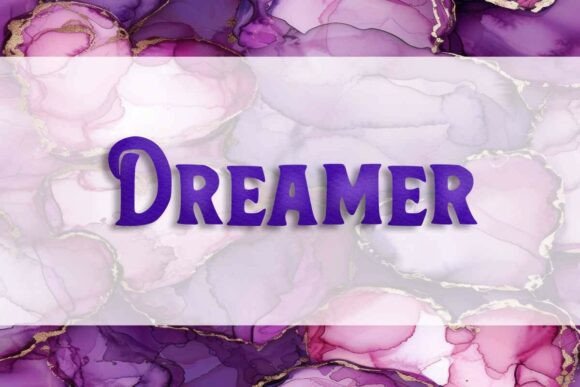
Unlock Endless Design Possibilities with the Dreamer Font
In the realm of typography, few fonts manage to capture the essence of creativity and versatility as effectively as the Dreamer font. This enchanting typeface is designed to bring an artistic flair to a wide array of projects, making it an indispensable tool for designers, crafters, and artists alike. Whether you’re looking to enliven your t-shirt designs, add a distinctive touch to your branding efforts, or infuse your magazine layouts with an unexpected twist, the Dreamer font is up to the task.
The Artistic Versatility of Dreamer Font
The Dreamer font stands out for its unique ability to adapt to various design needs. Its artistic and somewhat whimsical nature makes it perfect for projects that require a bit of flair. Here are some ways you can leverage the creative potential of the Dreamer font:
- T-Shirt Designs: Transform plain t-shirts into eye-catching apparel with the Dreamer font. Its stylish and contemporary look ensures that your designs stand out, making it ideal for personal projects or commercial endeavors.
- Branding: Give your brand a distinctive voice with the Dreamer font. Use it in your logos, marketing materials, and website to create a cohesive and memorable brand identity.
- Magazine Layouts: Add an element of surprise to your magazine layouts with the Dreamer font. Its versatility allows it to complement a variety of themes and styles, ensuring your publication captures the attention of readers.
Seamless Translation into SVG Files
For those involved in crafting and DIY projects, the ability to convert the Dreamer font into SVG (Scalable Vector Graphics) files is a significant advantage. SVG files are crucial for cutting machines like Cricut, allowing for precision cuts and enabling the creation of intricate designs. The Dreamer font translates smoothly into SVG files, making it perfect for:
- Greeting Cards: Create standout greeting cards with an enchanting vibe. The Dreamer font adds a personal touch to your cards, making them memorable for any occasion.
- Cricut Projects: Infuse your Cricut projects with a spirit of whimsy by using the Dreamer font. From custom vinyl decals to intricate paper crafts, the Dreamer font elevates your creations to a new level of artistry.
Enhancing Your Visual Projects
Beyond its application in digital and craft projects, the Dreamer font is also an excellent choice for enhancing your posters and social media content. Its striking appearance ensures that your message not only reaches a wider audience but also leaves a lasting impression.
- Posters: Elevate your posters with the Dreamer font, making them more engaging and visually appealing. Whether you’re advertising an event, promoting a product, or spreading awareness about a cause, the Dreamer font helps your poster stand out.
- Social Media: In the crowded world of social media, memorable engagement is key. Use the Dreamer font in your social media graphics to inspire interaction and make your content more shareable.
Step into a World of Endless Design Possibilities
The Dreamer font opens up a world of creative possibilities, allowing designers and creators to push the boundaries of their projects. Its versatility, coupled with its artistic flair, makes it an invaluable asset in any creative toolkit. Whether you’re a professional designer looking for a unique touch or a hobbyist seeking to add some whimsy to your crafts, the Dreamer font is your gateway to unparalleled design flexibility.
Why Choose the Dreamer Font?
Here are a few reasons why the Dreamer font should be your go-to choice for your next project:
- Unique Artistic Flair: The Dreamer font brings a distinctive artistic touch to any project, setting it apart from more conventional typefaces.
- Versatility: From digital designs to craft projects, the Dreamer font adapts seamlessly, making it suitable for a wide range of applications.
- Easy to Use: The Dreamer font is user-friendly, allowing for easy integration into your projects, whether you’re working with design software or cutting machines.
Getting Started with the Dreamer Font
Embarking on a creative journey with the Dreamer font is straightforward. Here are some steps to get you started:
- Choose Your Project: Decide on the project you want to work on. Whether it’s a t-shirt design, a branding project, or a Cricut craft, the Dreamer font can be adapted to suit your needs.
- Experiment and Create: Don’t be afraid to experiment with the Dreamer font. Try different sizes, colors, and combinations with other design elements to find what works best for your project.
The Dreamer font is more than just a typeface; it’s a tool for creative expression and innovation. Its ability to bring an artistic flair to a variety of projects, coupled with its versatility and ease of use, makes it an essential component of any creative arsenal. Whether you’re looking to enhance your professional designs or add a personal touch to your crafts, the Dreamer font invites you to step into a world of endless design possibilities. So why wait? Unlock the full potential of your projects with the Dreamer font today.